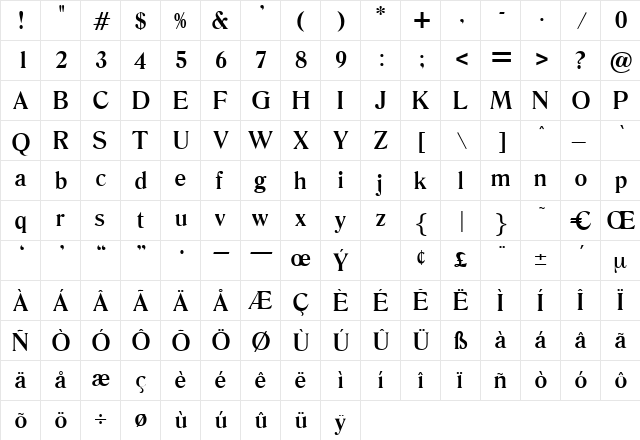
OktaveMedium Regular Font Preview
OktaveMedium Regular
OktaveMedium Regular Font Details
Design Context for OktaveMedium Typeface
OktaveMedium is a composed and adaptable typeface that performs quietly and consistently across a wide range of design contexts.